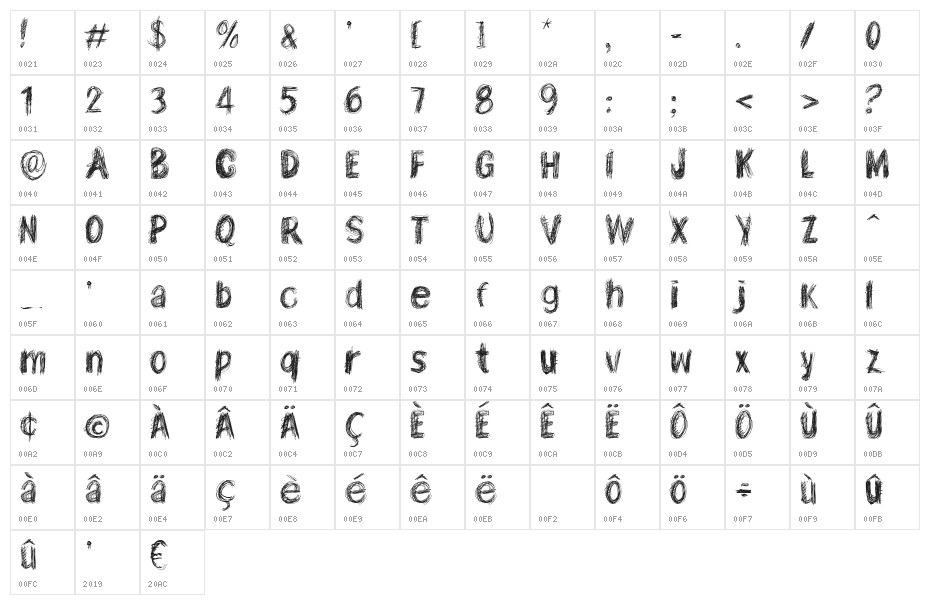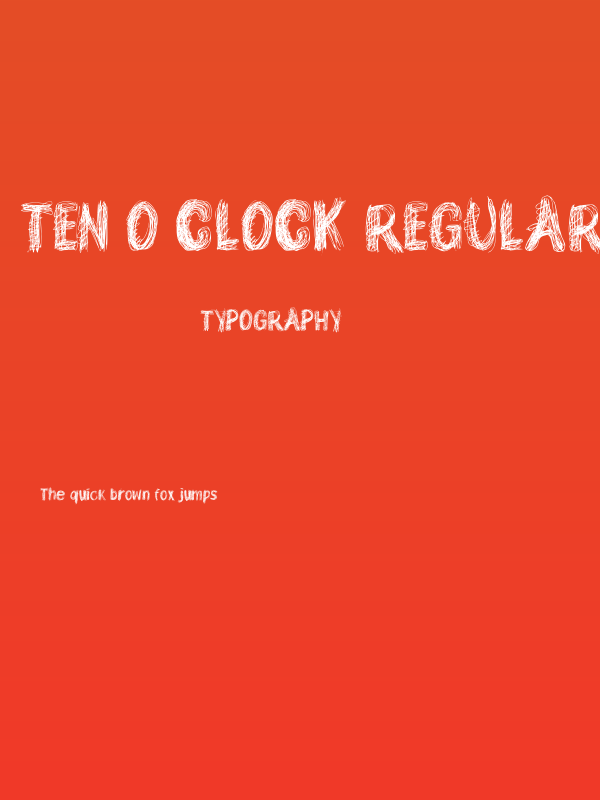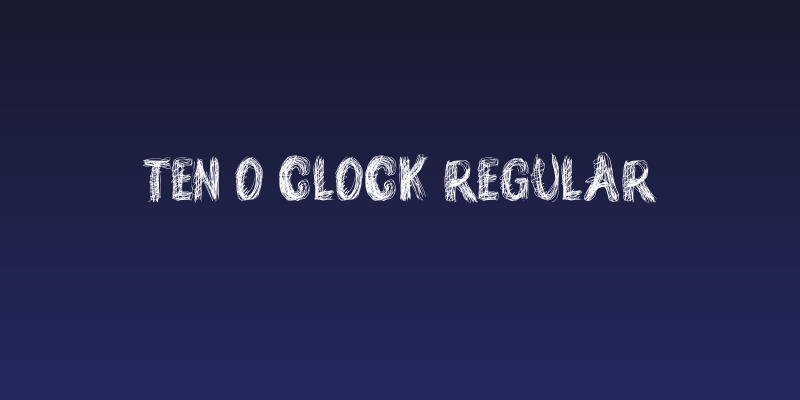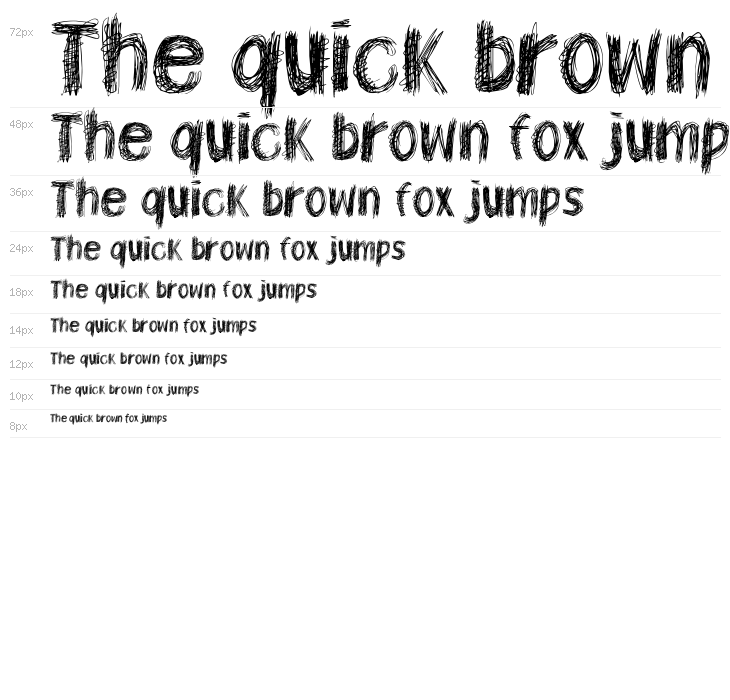
TEN O CLOCK Regular Font
TEN O CLOCK Regular Description
This font features a highly textured, hand-drawn style that gives it a unique, sketch-like appearance. Each character is composed of multiple overlapping strokes, creating a sense of movement and dynamism. The irregularity in the lines adds a playful, artistic quality, making it stand out as a decorative choice. The uppercase and lowercase letters maintain a consistent style, while the numerals and special characters complement the overall aesthetic. This font is ideal for projects that require a bold, creative touch.
| Proposed Projects | Ideal for artistic projects, posters, album covers, and creative branding that require a bold, unique style. |